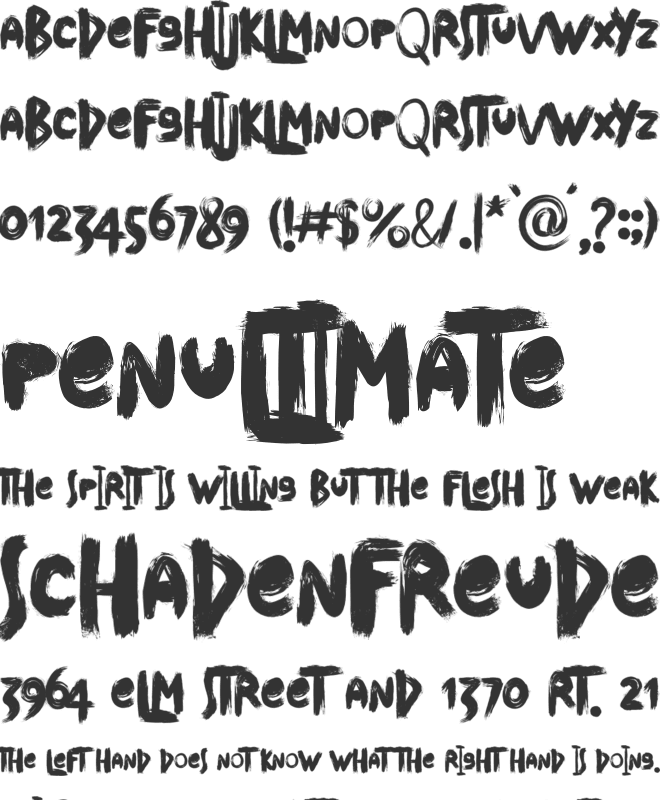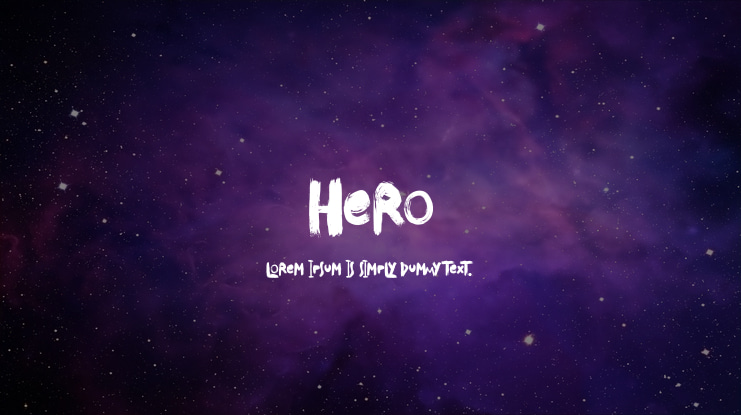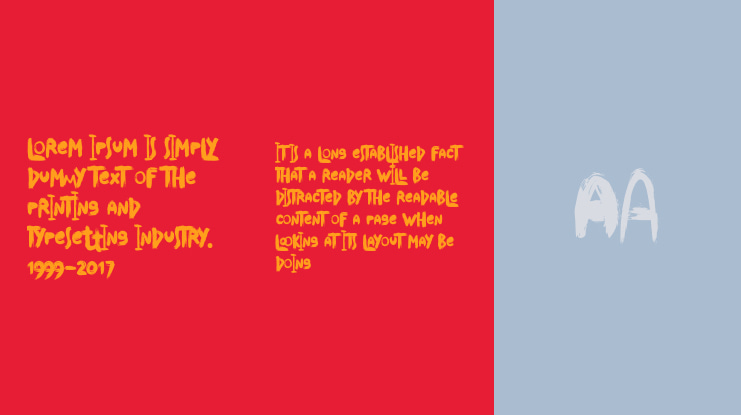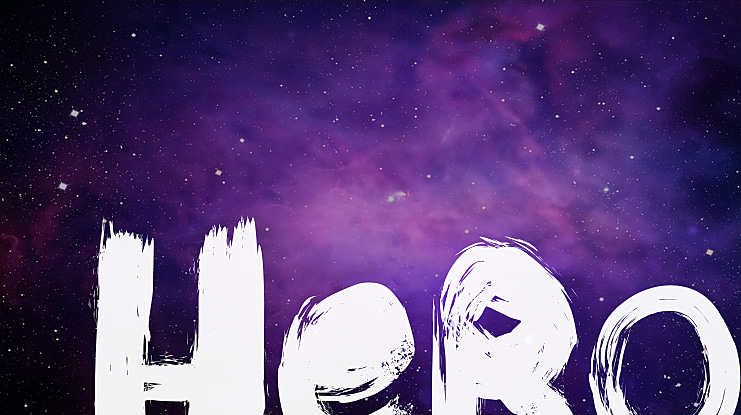
Hero Font
Roman Polishchuk
Hiro - is a naturalistic, handwritten font. It features great detail and beautiful brush strokes. Support for ligatures allows you to create a truly unique typography that resembles lettering. Feel free to ask and give your opinion about this font.